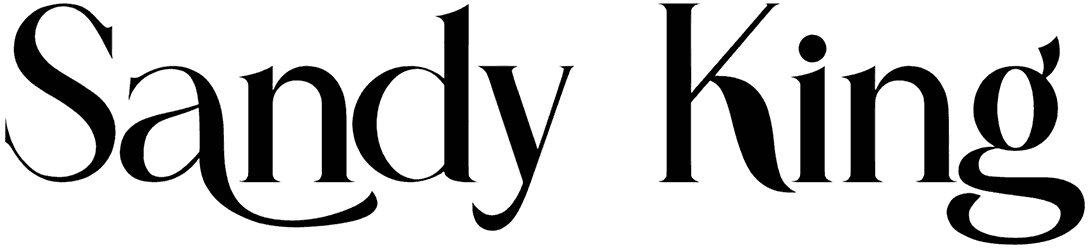
Sandy King Font
Sandy King offers a world of possibilities for designers who want to add flavor and elegance to their work. It doesn’t matter if you use this serif font on a classic book cover or use it for a sophisticated branding campaign.
It can help you achieve your creative vision and add a playful twist to your designs. This font can enhance any design project and convey a professional look while ensuring readability.